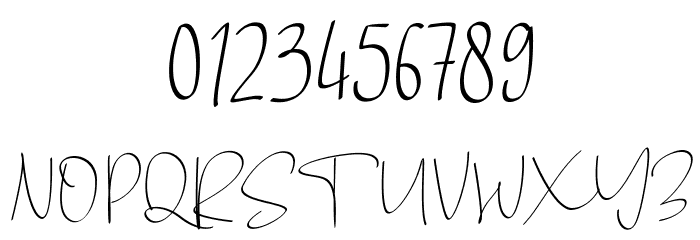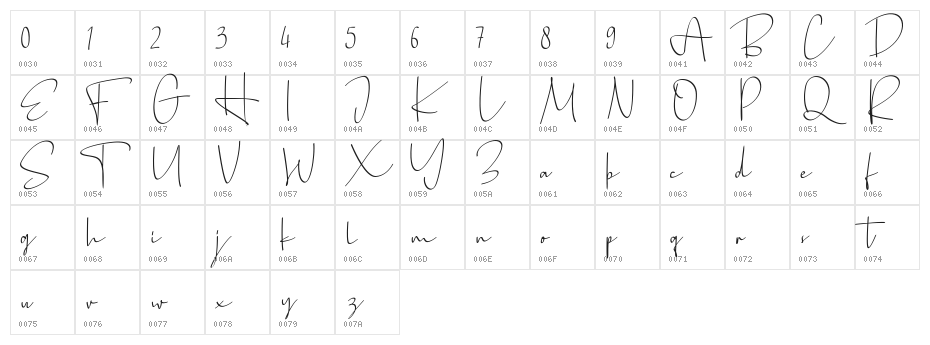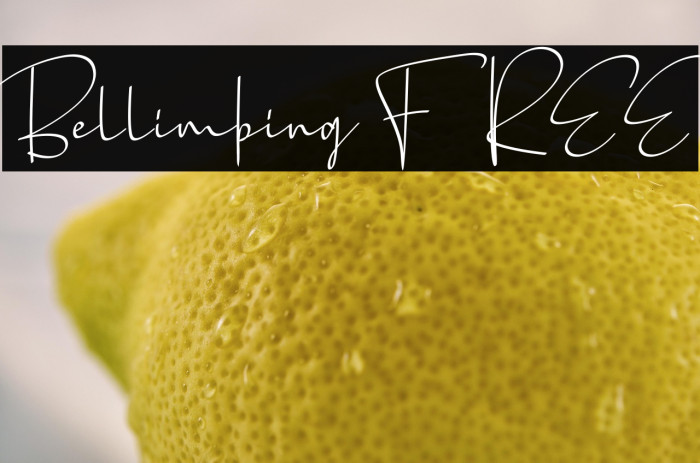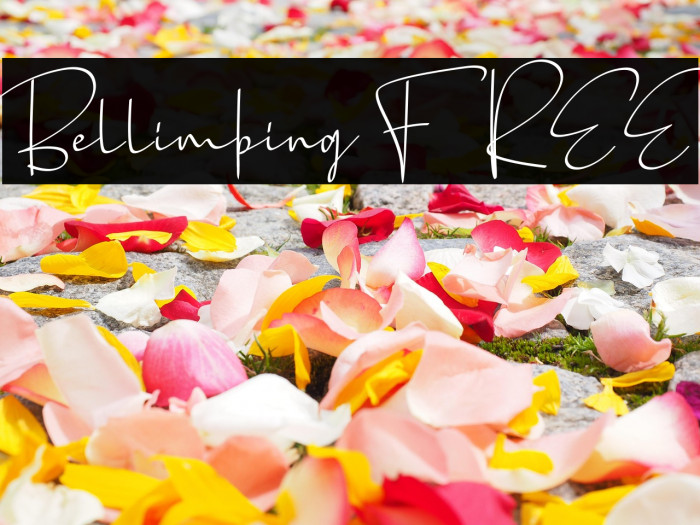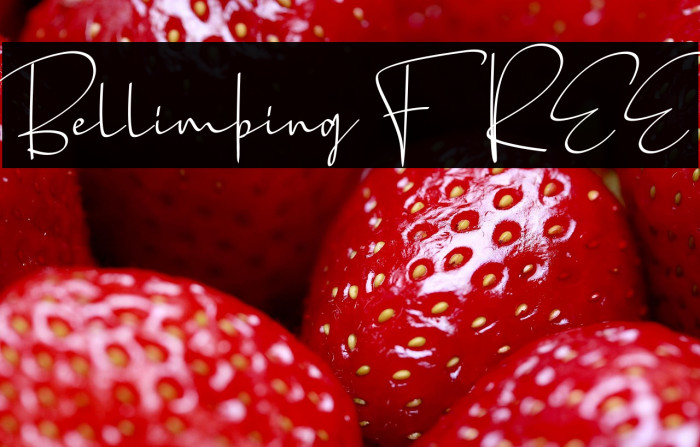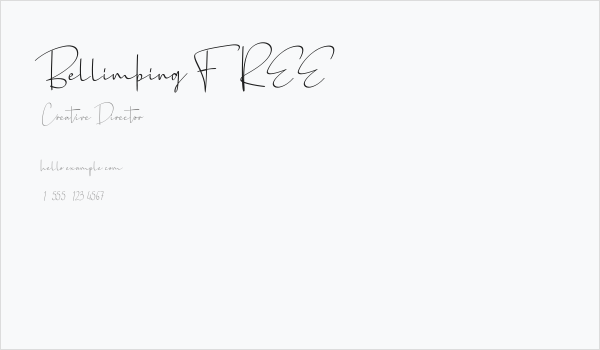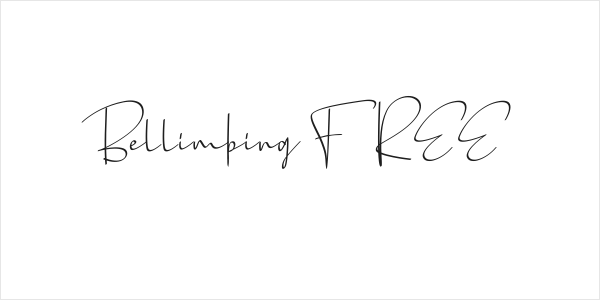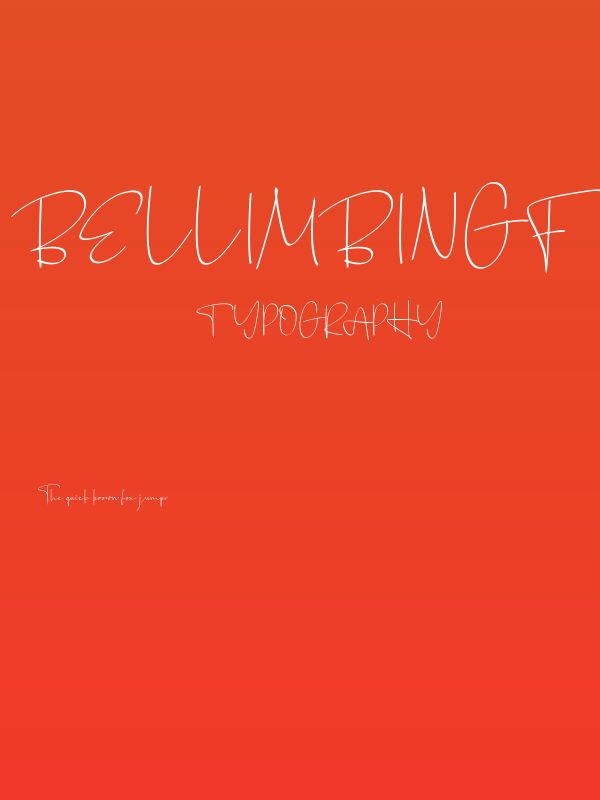
Bellimbing FREE Font
Bellimbing FREE Description
This font features a unique handwritten style that combines both uppercase and lowercase letters with a fluid, cursive touch. The characters are elegantly elongated, giving a sense of movement and grace. The uppercase letters are distinct with a playful, artistic flair, while the lowercase letters maintain a consistent flow, enhancing readability. Numbers are clear and well-proportioned, matching the overall aesthetic. Special characters are creatively integrated, maintaining the font's cohesive style. This font exudes a modern yet personal feel, making it ideal for creative projects.